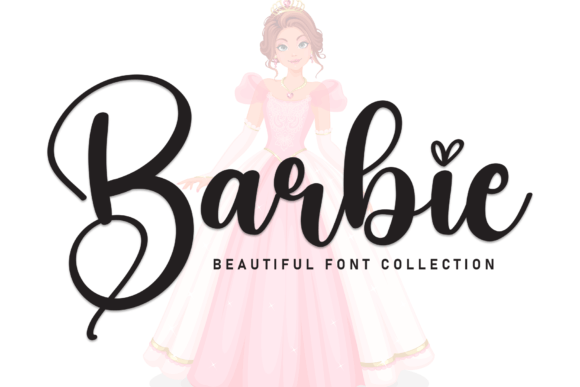
The Ultimate Guide to Barbie Font: Elevate Your Designs with Elegance
I’ll never forget the time I was working on a wedding invitation project, and my client asked for a font that was both elegant and playful. I scoured the internet, tried countless fonts, but nothing seemed quite right. That was until I stumbled upon the Barbie Font. It was love at first sight! ✨ The flowing curves, the sophisticated vibe – it was exactly what I needed. In this article, I’ll share my experience with the Barbie Font, its features, and how to make the most of it in your designs.
What is Barbie Font?
The Barbie Font is a modern, stylish typeface perfect for a variety of design projects, from wall displays and wedding invitations to social media posts and product packaging. This font is designed to bring a touch of elegance and sophistication to your work.
Honest Review
• ✨ Elegant and sophisticated design
• ✅ Highly versatile for various projects
• 🎉 Great for both digital and print designs
• 🤔 Limited availability of certain special characters
• ⚠️ Might not be the best fit for very informal or playful projects
The Designer Inspiration Behind Barbie Font
The Barbie Font was inspired by the classic elegance of fashion and the modern sophistication of digital design. Its creator aimed to craft a font that embodies both luxury and approachability, making it perfect for designers looking to add a touch of glamour to their work.